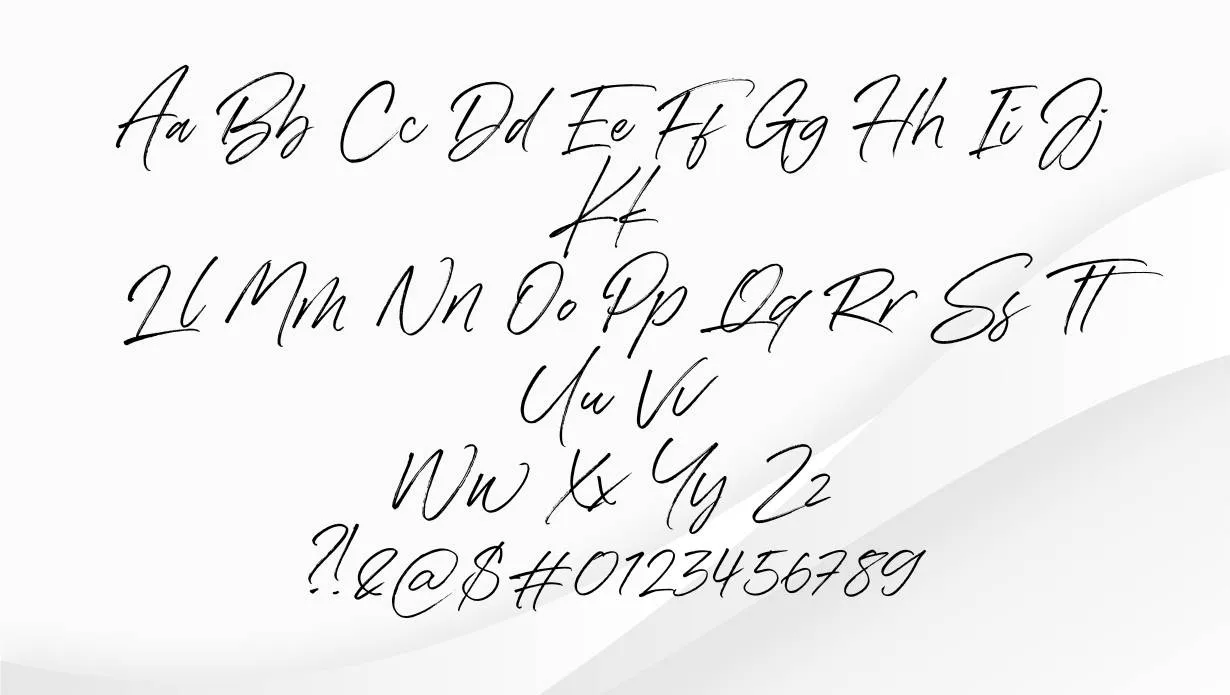
The Denmark Handwritten Font is a delightful and personalized script typeface that adds a cozy feel to your designs. It’s ideal for artistic endeavors like greeting cards, personal blogs, or creative branding.
The font includes a variety of characters, featuring uppercase and lowercase letters, numerals, punctuation, and special characters.
Whether you’re designing in Canva or Adobe, Denmark Handwritten Font adds a personal and heartfelt element to your text, making your content feel more genuine and relatable.